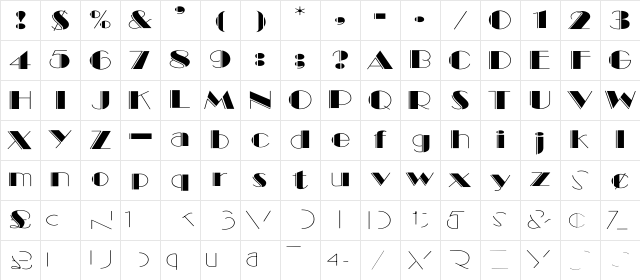
Complete BalletEngraved Wide Regular glyph index. Displaying only characters natively supported by BalletEngraved Wide Regular font.
BalletEngraved Wide is built around its visual character rather than neutral utility - its distinctive forms are designed to make an impression at display sizes.
Font Pairing: Pair with a clean neutral sans-serif for body copy to let BalletEngraved Wide's character lead without overwhelming the composition.
Pro Tip: Use BalletEngraved Wide exclusively at display sizes - it was designed to be seen, not read at length. Let a neutral companion handle body copy.